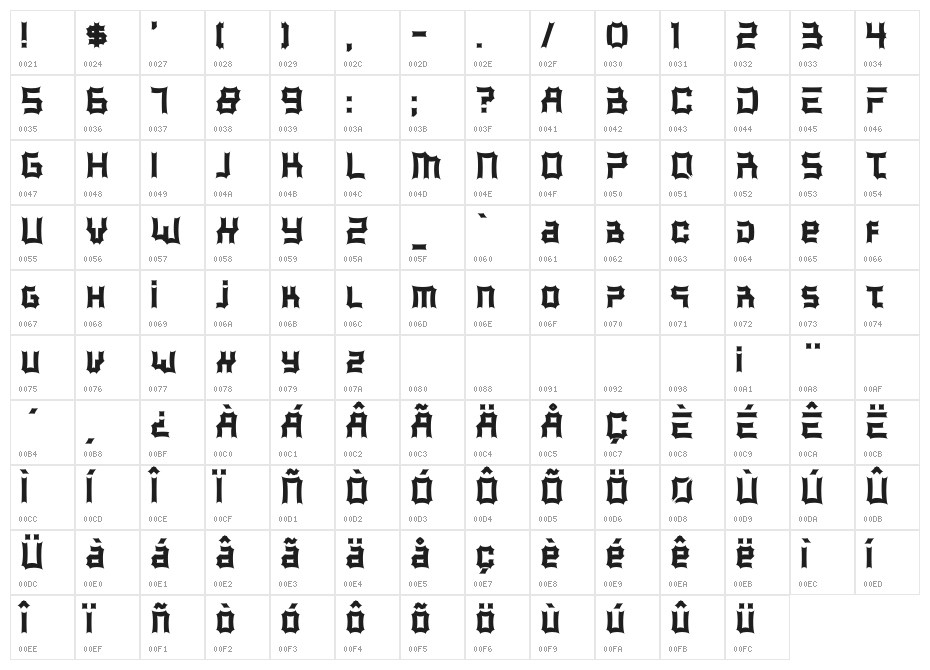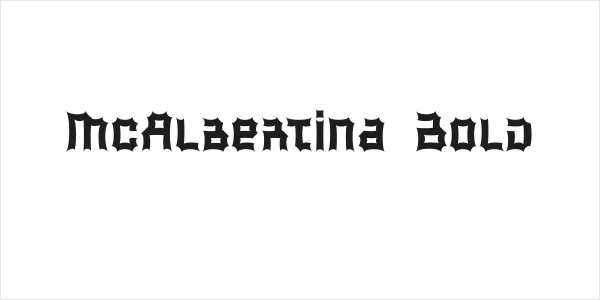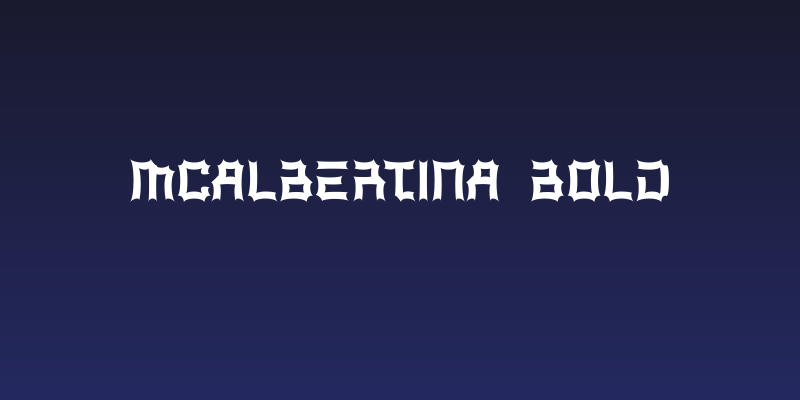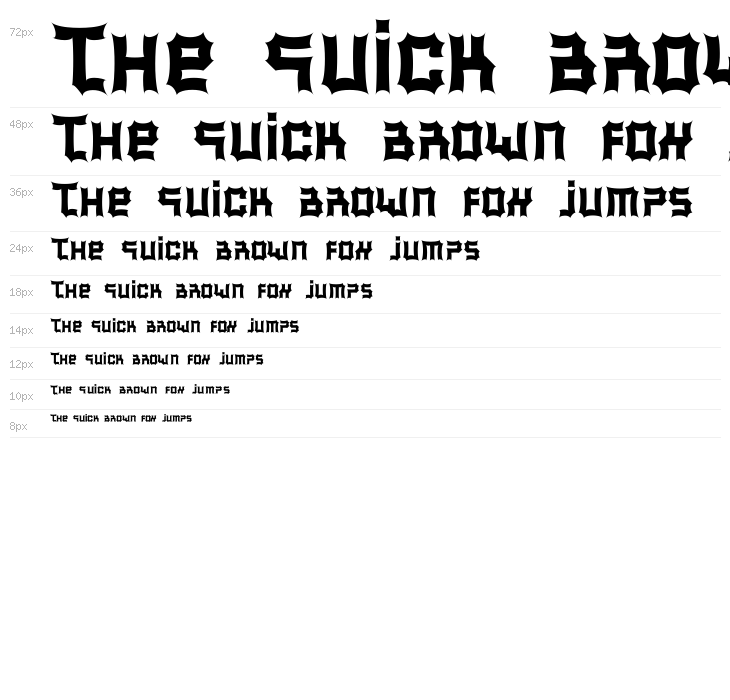
McAlbertina Bold Font
McAlbertina Bold Description
This font features a bold and striking design with sharp, angular edges and a gothic influence. The uppercase and lowercase letters maintain a consistent style, characterized by pointed serifs and a heavy weight that commands attention. The numerals and special characters follow the same aesthetic, providing a cohesive look across all glyphs. The overall appearance is reminiscent of medieval or blackletter styles, making it ideal for projects that require a dramatic and impactful typeface.
Proposed ProjectsIdeal for use in branding, posters, album covers, and any design that requires a dramatic and bold statement.